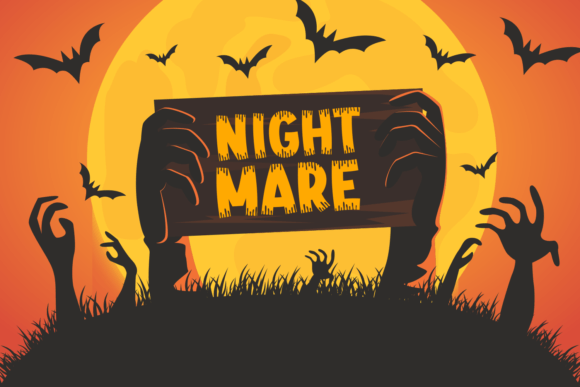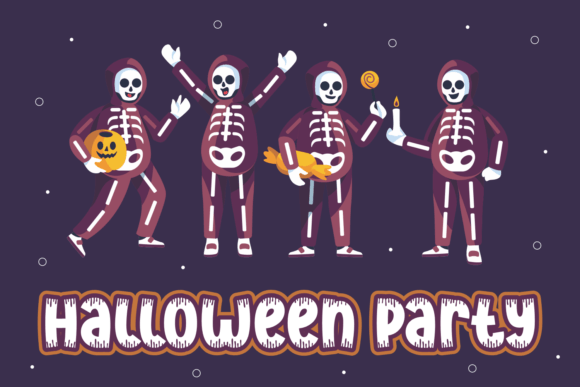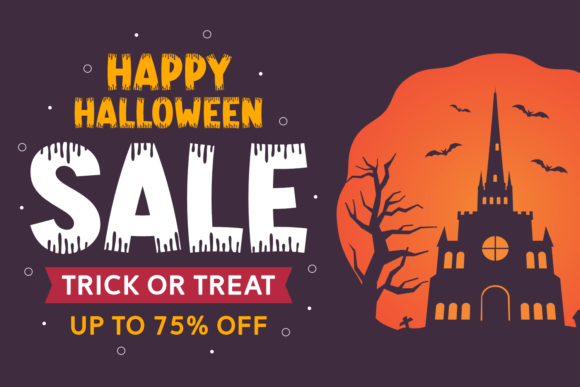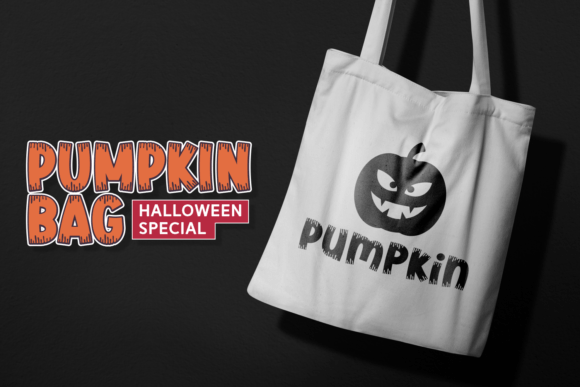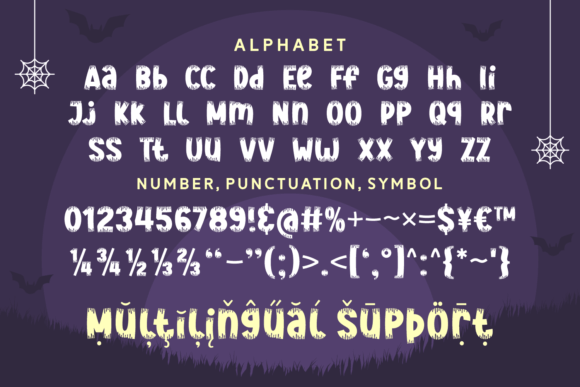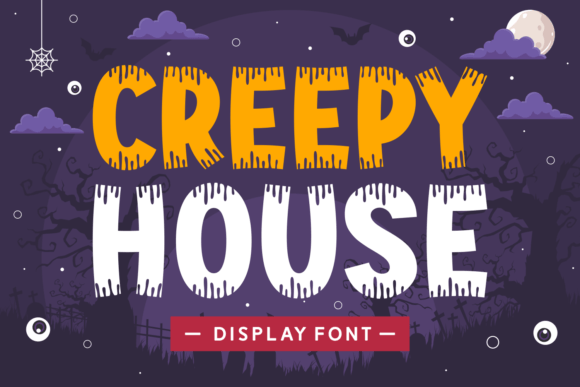
Unleash the Spookiness: Exploring the Creepy House Font
As the spookiest time of the year approaches, designers and crafters are on the lookout for the perfect typography to add a dash of eeriness to their Halloween projects. Look no further than the Creepy House Font, a fun and quirky display font that’s sure to cast a spell on your audience. With its decorative drippings and festive vibe, this font is a must-have for anyone looking to create some seriously spooky designs.
What is the Creepy House Font?
The Creepy House Font is a unique and eye-catching display font that’s perfect for Halloween-themed designs. Its distinctive feature is the decorative drippings that adorn each letter, giving it a delightfully spooky and eerie feel. The font is designed to be fun and playful, making it ideal for use in a variety of creative projects, from party invitations and decorations to social media graphics and more.
Key Features of the Creepy House Font
• Decorative Drippings: The Creepy House Font features decorative drippings that add a spooky touch to each letter.
• Fun and Quirky: The font has a playful and whimsical feel, making it perfect for Halloween-themed designs.
• Display Font: The Creepy House Font is designed as a display font, making it perfect for use in headlines, titles, and other prominent text elements.
• Festive Vibe: The font has a distinctly festive vibe, making it ideal for use in Halloween-themed designs.
Why Use the Creepy House Font?
So why should you use the Creepy House Font in your designs? Here are just a few reasons:
• Add a Spooky Touch: The Creepy House Font is the perfect way to add a spooky touch to your Halloween designs.
• Stand Out from the Crowd: The font’s unique and eye-catching design ensures that your designs will stand out from the crowd.
• Easy to Use: The Creepy House Font is easy to use and can be incorporated into a variety of design projects.
• Versatile: The font can be used in a range of design projects, from party invitations and decorations to social media graphics and more.
Design Ideas Using the Creepy House Font
The Creepy House Font is a versatile font that can be used in a variety of design projects. Here are some ideas to get you started:
• Halloween Party Invitations: Use the Creepy House Font to create spooky and eye-catching party invitations.
• Decorations: Use the font to create festive decorations, such as banners, garlands, and more.
• Social Media Graphics: Use the font to create spooky and engaging social media graphics.
• T-Shirts and Merchandise: Use the font to create spooky and eye-catching t-shirts and merchandise.
Tips for Using the Creepy House Font
Here are some tips for using the Creepy House Font in your designs:
• Use it Sparingly: The Creepy House Font is a bold and eye-catching font, so use it sparingly to avoid overwhelming your design.
• Pair it with Other Fonts: Pair the Creepy House Font with other fonts to create a unique and interesting contrast.
• Experiment with Colors: Experiment with different colors to find the perfect combination for your design.
The Creepy House Font is a fun and quirky display font that’s perfect for Halloween-themed designs. With its decorative drippings and festive vibe, this font is sure to add a spooky touch to your designs. Whether you’re a designer or crafter, the Creepy House Font is a must-have for anyone looking to create some seriously spooky designs. So why wait? Get inspired by this festive typeface and use it to enhance your design ideas!